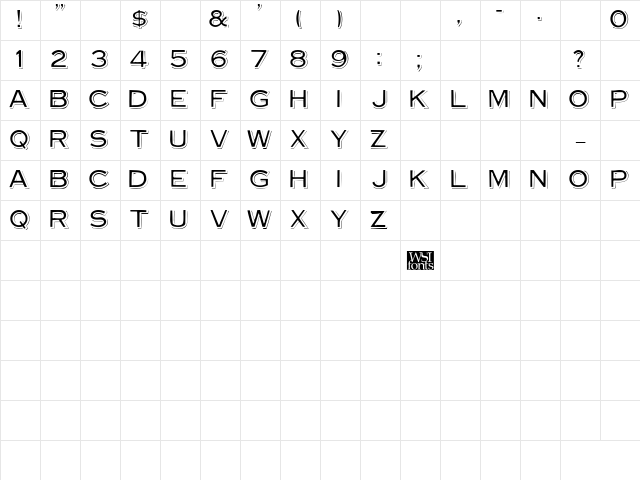
VinylCaps Regular
Complete VinylCaps Regular glyph index. Displaying only characters natively supported by VinylCaps Regular font.
Design Context for VinylCaps
VinylCaps is a composed and adaptable typeface that performs quietly and consistently across a wide range of design contexts.